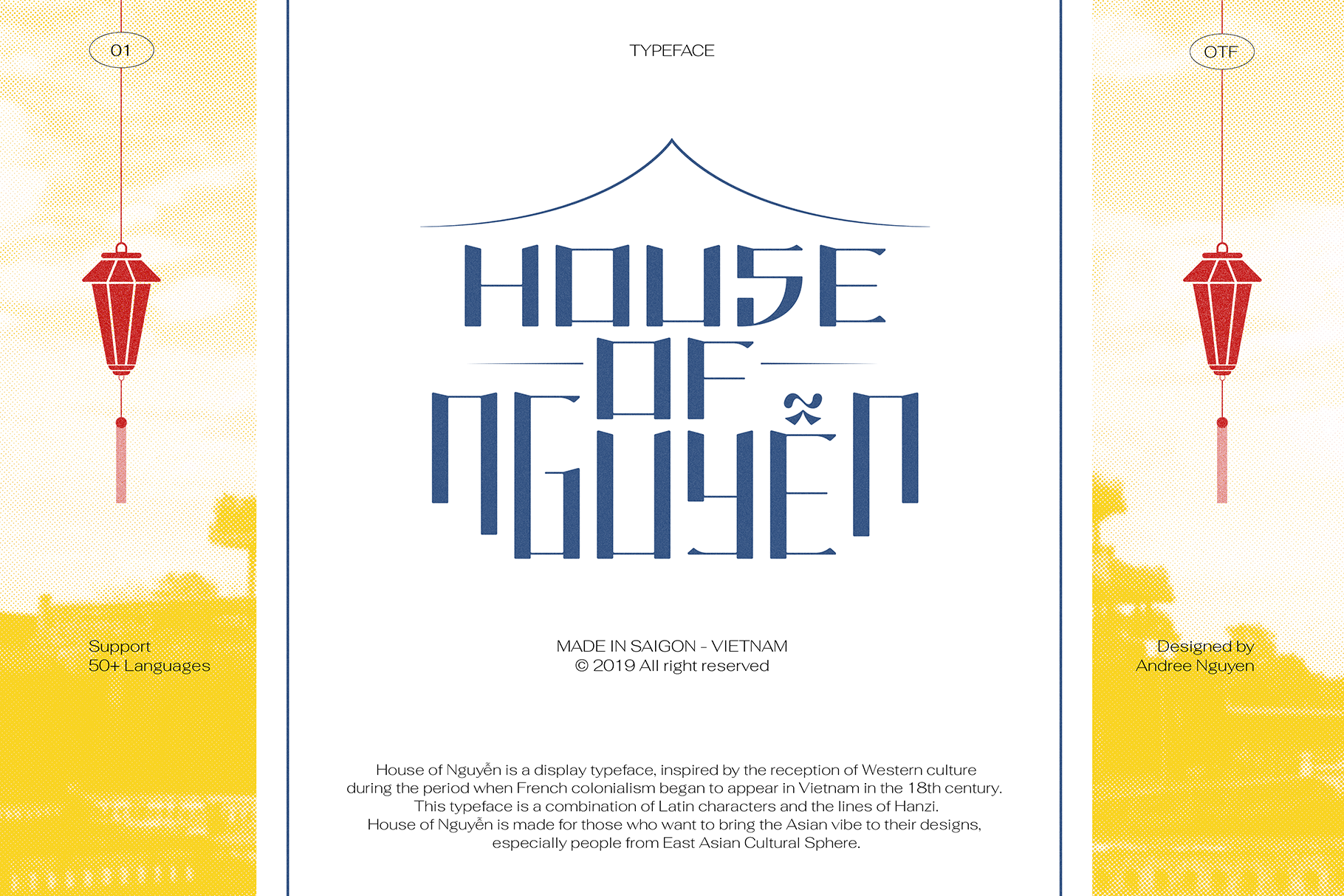
House Of Nguyen Typeface
House of Nguyen is a display typeface, inspired by the reception of Western culture during the period when French colonialism appeared in Vietnam in the 18th century. This typeface is a combination of Latin characters and the lines of Hanzi.
House of Nguyen is made for those who want to bring the Asian vibe to their designs, especially designers from East Asian Cultural Sphere.
- Round corner for all glyphs.
- X-height is now higher.
- New alternate glyphs.
- Improve kerning.
- Remove European glyphs & unsuitable glyphs.